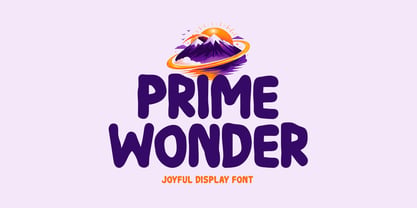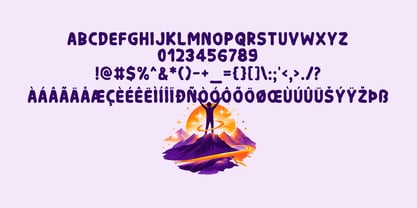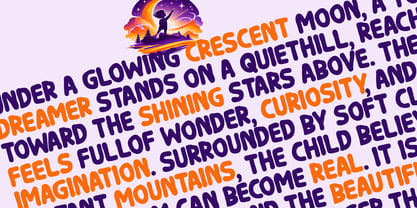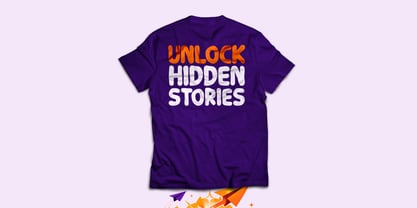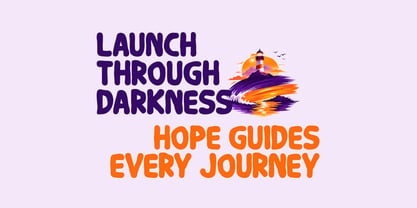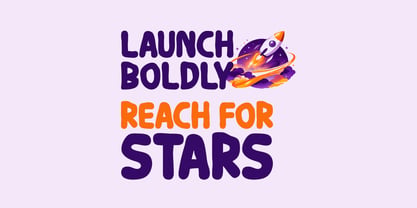
Prime Wonder
by Seemly Fonts
The Prime Wonder Font Family was designed by Md. Sohail Bhuiyan and published by Seemly Fonts. Prime Wonder contains 1 styles. More about this family
Prime Wonder Font is a bold and playful display font designed to bring imagination, creativity, and joyful energy into your designs. With its rounded shapes, friendly letterforms, and smooth decorative style, this font creates a fun and magical atmosphere that instantly grabs attention. Prime Wonder font is perfect for children’s designs, storybook titles, posters, branding, logos, packaging, and creative headlines that need a lively and adventurous personality. Its expressive characters make every word feel cheerful, unique, and full of wonder.
Designers: Md. Sohail Bhuiyan
Foundry: Seemly Fonts